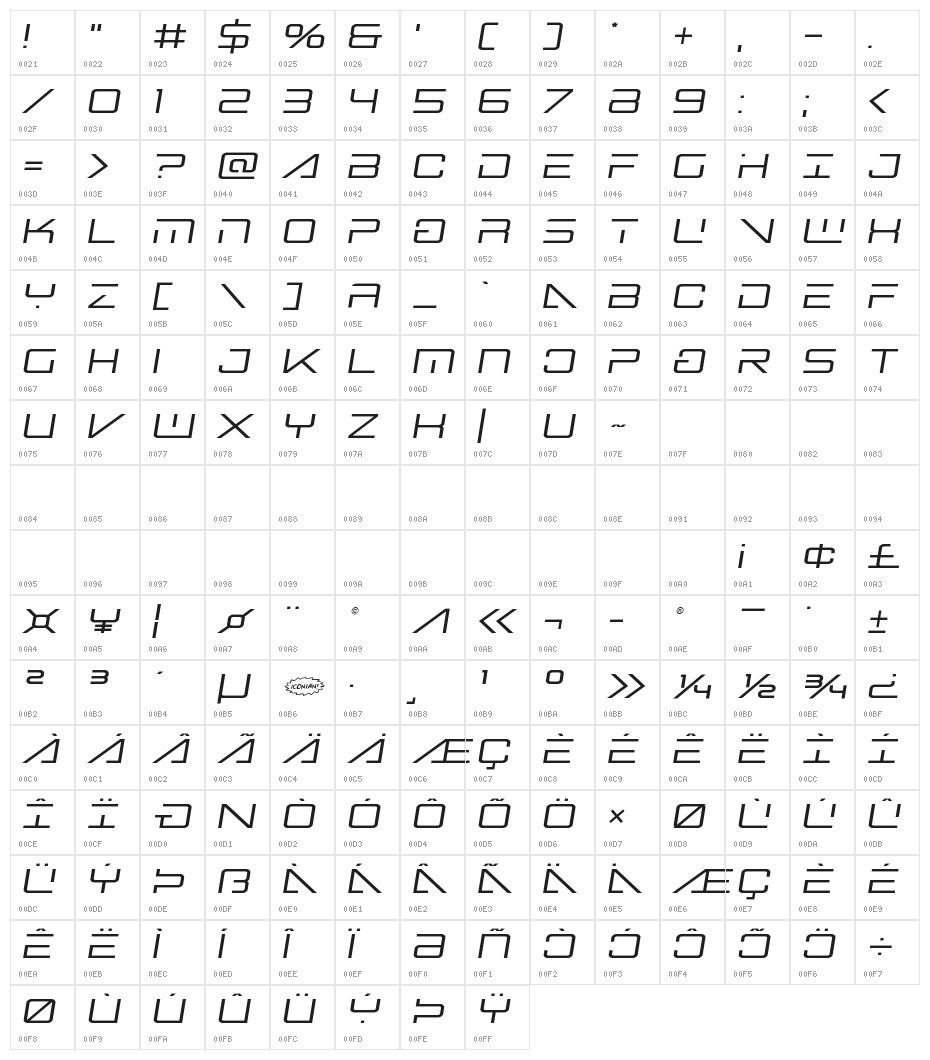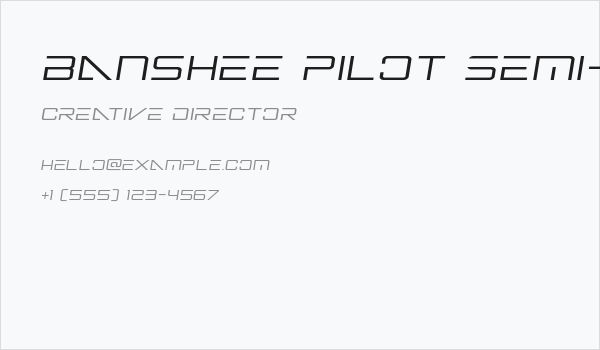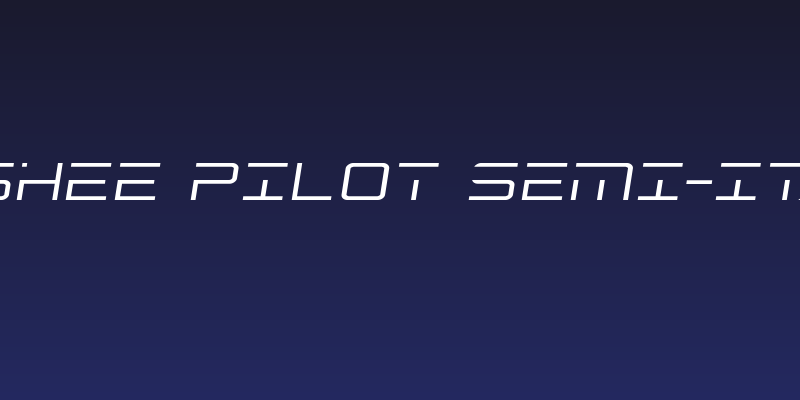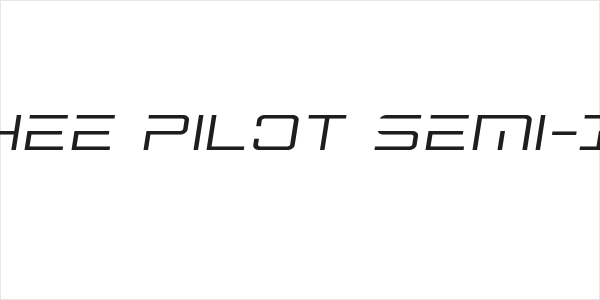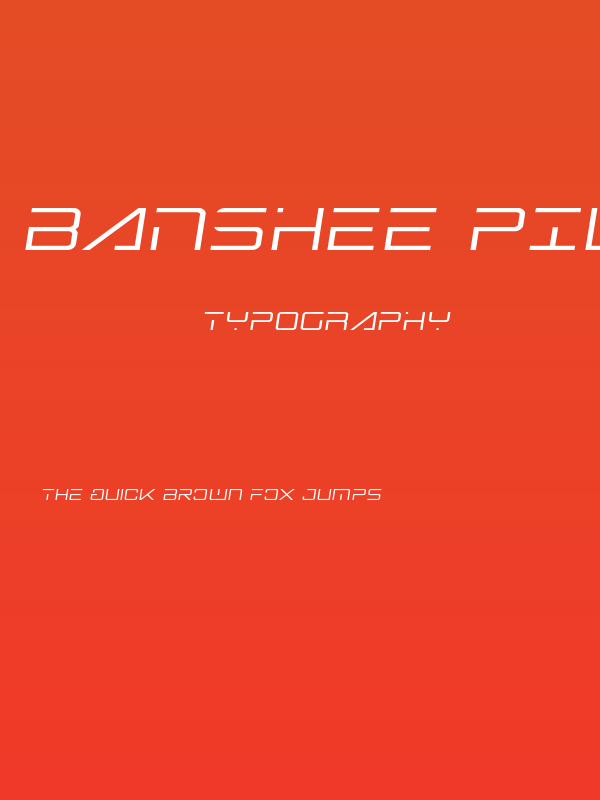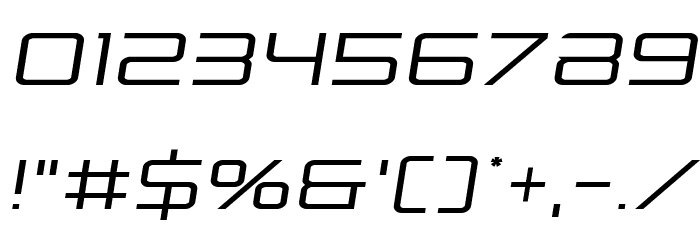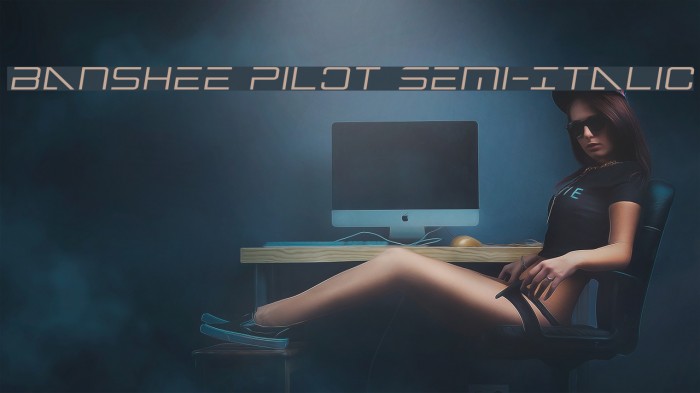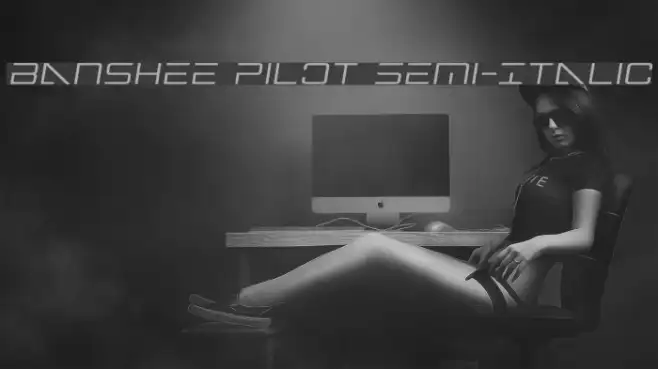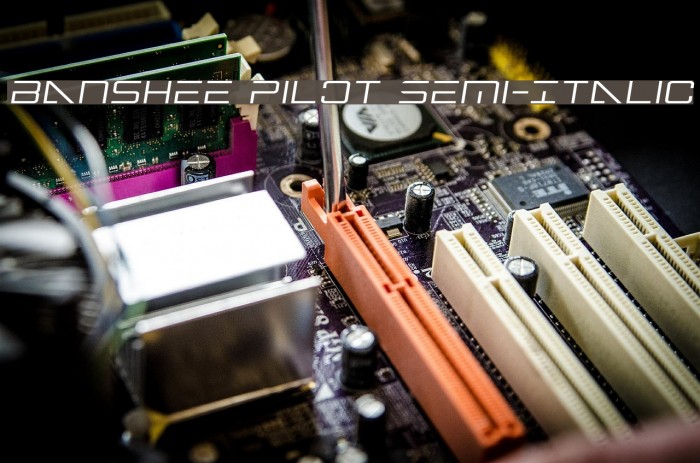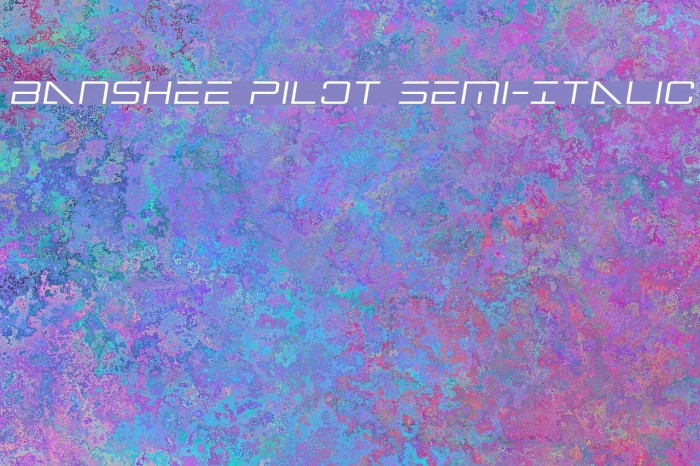
Banshee Pilot Semi-Italic Font
Banshee Pilot Semi-Italic Description
This font features a sleek, modern design with a semi-italic slant, giving it a dynamic and futuristic appearance. The characters are constructed with clean, geometric lines and subtle curves, creating a sense of motion and speed. The uppercase and lowercase letters maintain a consistent style, with a unique angularity that sets them apart. The numerals and special characters are designed to match the overall aesthetic, ensuring a cohesive look across all text. This font is ideal for projects that require a contemporary and tech-savvy feel.
| Overall Style | Futuristic, Sleek, Dynamic |
| Use Case | Headlines, Logos, Branding |
| Proposed Projects | Ideal for technology branding, futuristic designs, automotive industry materials, and modern advertising campaigns. |